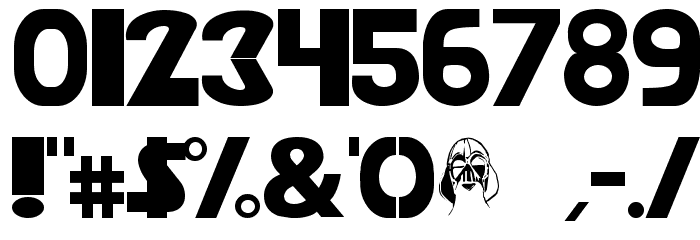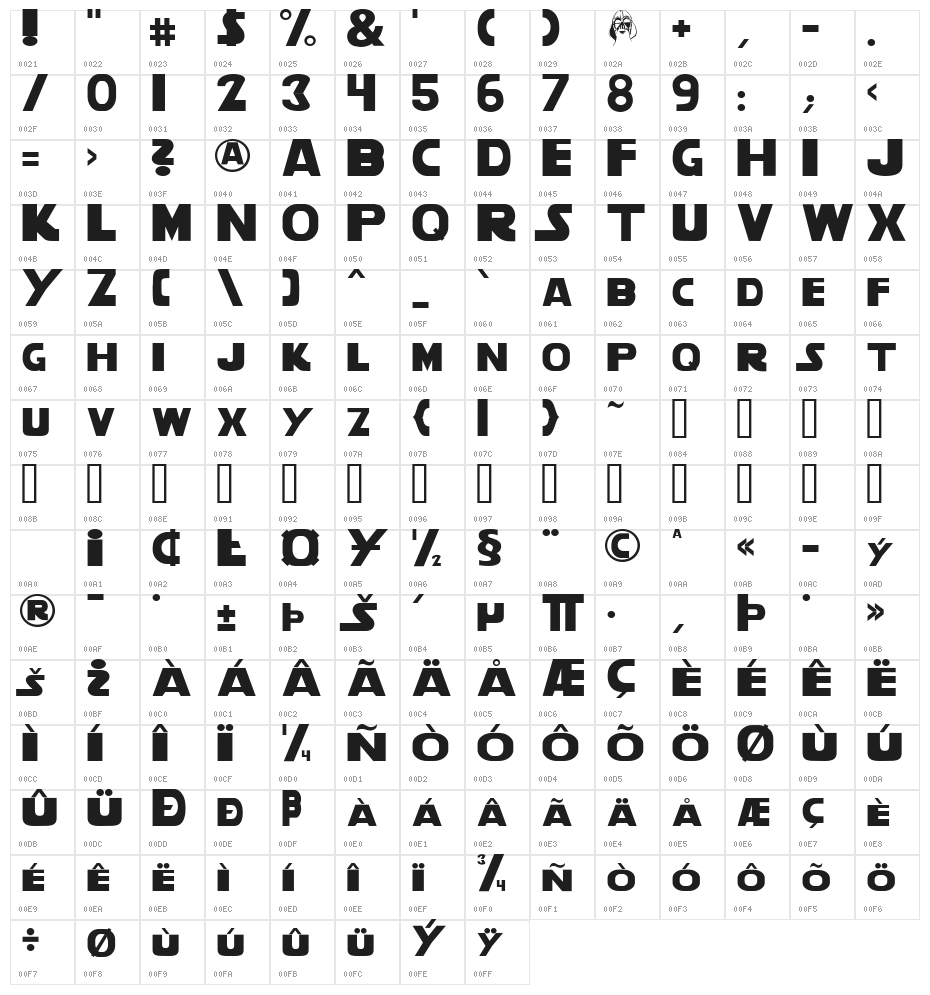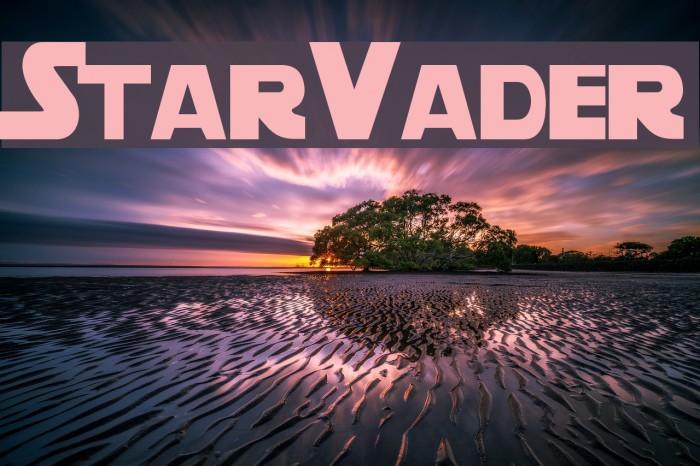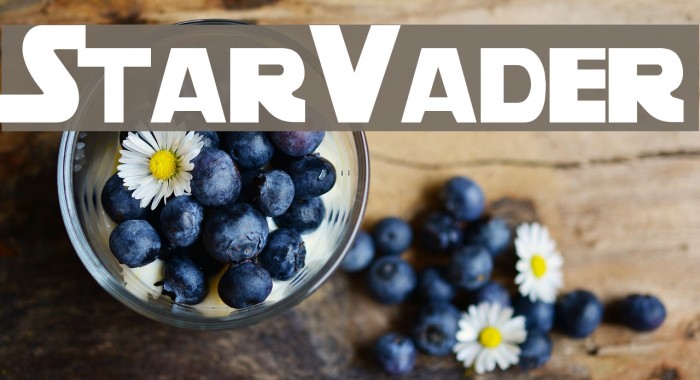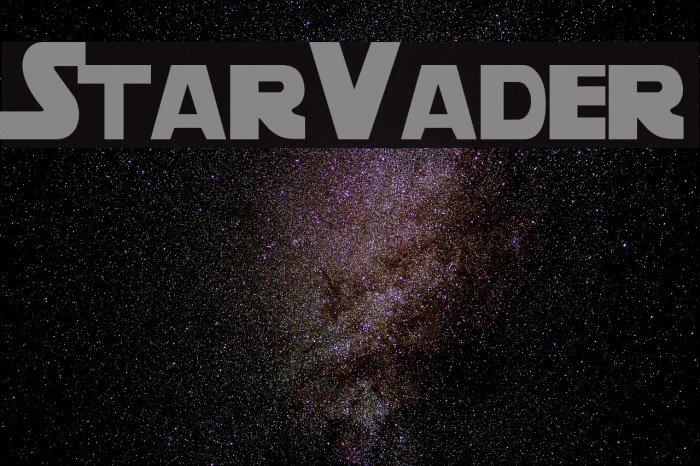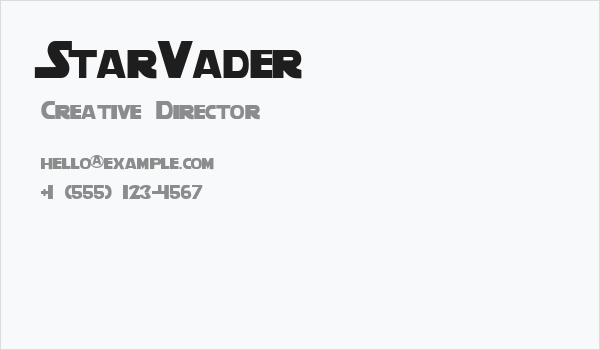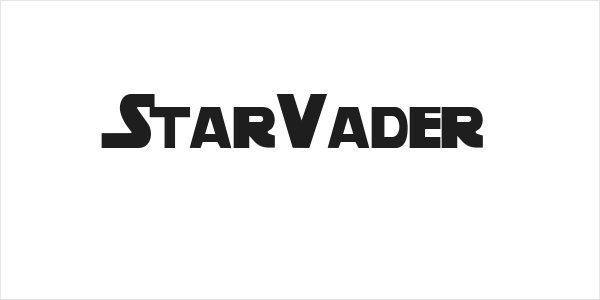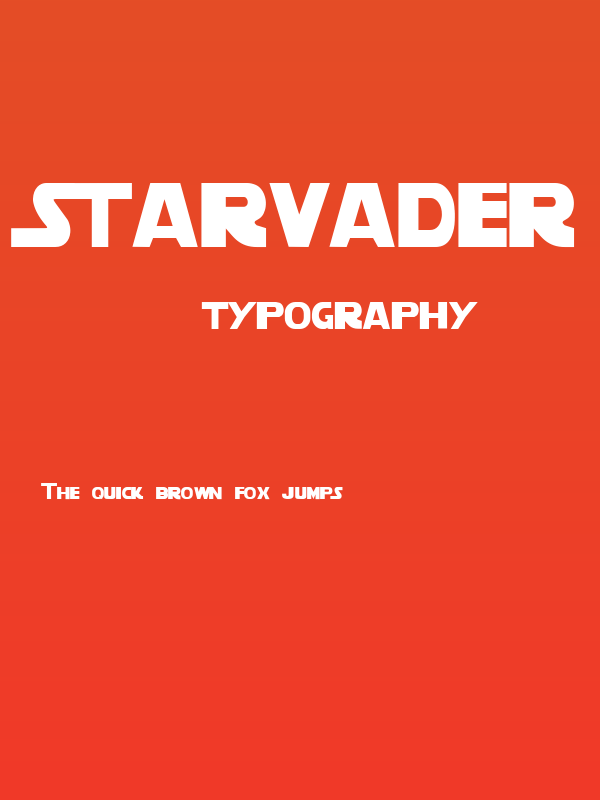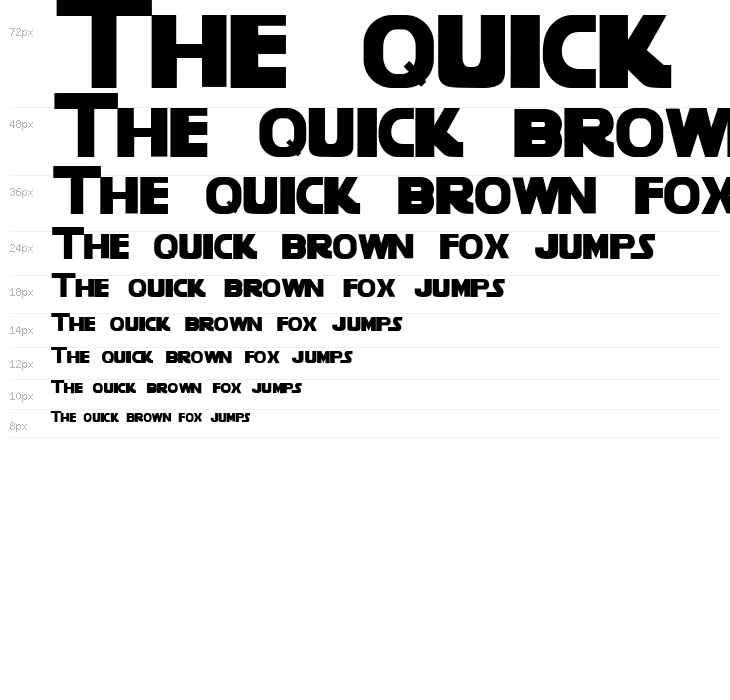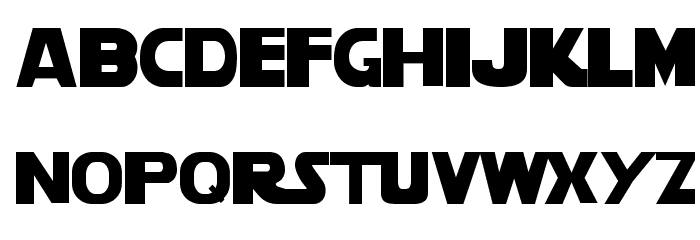
StarVader Font
StarVader Description
This font features a bold and futuristic design with strong geometric shapes and sharp angles. The characters are wide and imposing, creating a sense of power and modernity. The uppercase letters are particularly striking, with a uniform height and consistent stroke width that enhances readability. The numerals and special characters maintain the same boldness, ensuring a cohesive look across all text. This font is ideal for projects that require a strong visual impact, such as movie posters, video game titles, or branding for technology companies.
| Proposed Projects | Ideal for movie posters, video game titles, technology branding, and sci-fi themed designs. |